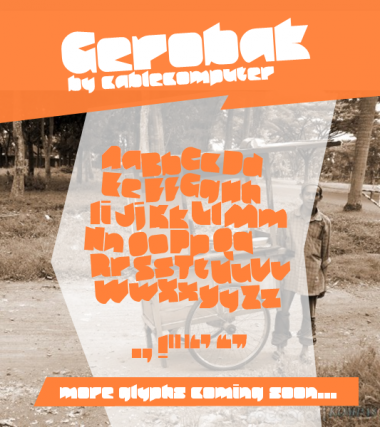
The a curve is beautiful.
a well deserve TP
(What makes the update?)
A nice one in the very long series of ink-draining (thus polluting ;-)) dark characters (filled counters, apertures, eyes…). Quite legible too.
This time a simple cart initiated your creative experiment(?)…
I have an idea, since it looks relatively unexploited or can be quite bested with your skill: keyholes (the same way, even with decorative ironworks)…
What did you update exactly yesterday? (E.g. added numerics?) Cool.
@dpla: Nope, I just refine things to make it look better especially with the new tool. And to answer your previous question, no, I was not initiated by a thinking simple cart. I used to build shapes first then make up the title later. The name "Gerobak" just appeared randomly in my mind honestly. And when I think about it, it is actually quite random haha
Ah, thank you for my understanding of the chronology (and how-to fontstruct without plans, which is fun too), where the sample image somehow materializes a concept of art (one year after the initial release). Today, I can see speech balloons in this dark experiment (more than different funny carts without wheels)… Or -Joker 'idea'- if I mix both (ressemblances), I could use this font as dingBAT… man! ;-))
The font is messed up, please fix it...
@Brynda: now I get the changes… (funny 'glitch'.)
Oh no :(( I just realized this, is there any way to fix it?? @meek
I've used, I suppose, a hidden FontStructor feature of removing duplicate and unused bricks (shift+T), because my pallette has a bunch of it, and ended up fine. But now the font is messed up, did the "feature" cause the harm??
@meek Why is this a top pick twice?
@xXx XBox Gamer – the original was corrupted this is a reconstituted version. The other top pick will be removed at some point.
Good to see it back! Well done, meek (too)!
This is incredible! This is what I wanted!